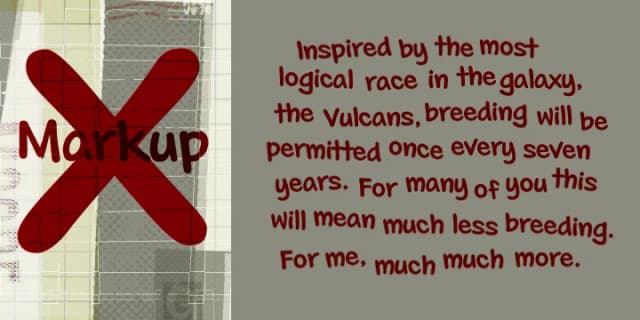
About Philly Sans Font
Philly Sans is a script & handwritten font designed by Philatype. It includes 70 glyphs, a regular weight, OTF (CFF) format, and 91 languages. Philly Sans is free to download; check the license details on this page before commercial use. Script & handwritten fonts like Philly Sans work best for wedding invitations, greeting cards, signatures, and elegant branding.
Philly Sans Font is a script font that shines as a display or heading face. Pair it with a clean sans-serif or serif font for body text β the contrast creates a clear hierarchy while the two styles stay balanced and easy to read.
Philly Sans Font
by Philatype
Philly Sans Font is a script handwritten typeface by Philatype, ideal for logos, invitations, branding, and creative projects.